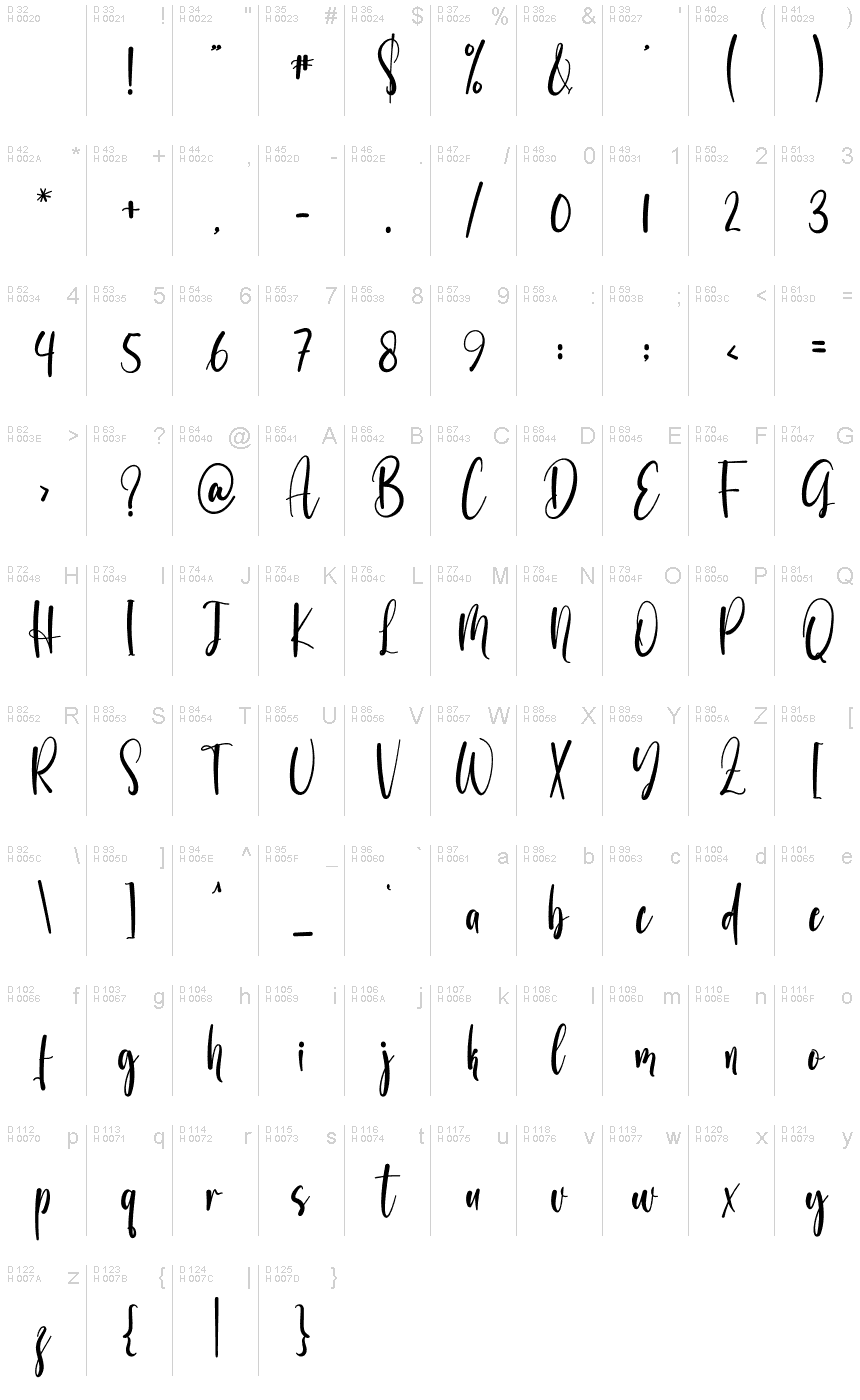
Hollow
Hollow, a unique creation by Kateeng Ciu, is a semi-light, semi-condensed handwritten font that seamlessly blends sophistication with modernity. Its classy calligraphic influence adds a touch of elegance to any project while still exuding freshness.
Perfect for various creative endeavors, Hollow is suitable for designing stylish letterheads and eye-catching titles. Additionally, its versatility makes it an excellent choice for creating stunning stationery that stands out from the crowd.
With Hollow, let your creativity flow and bring life to your next design venture.